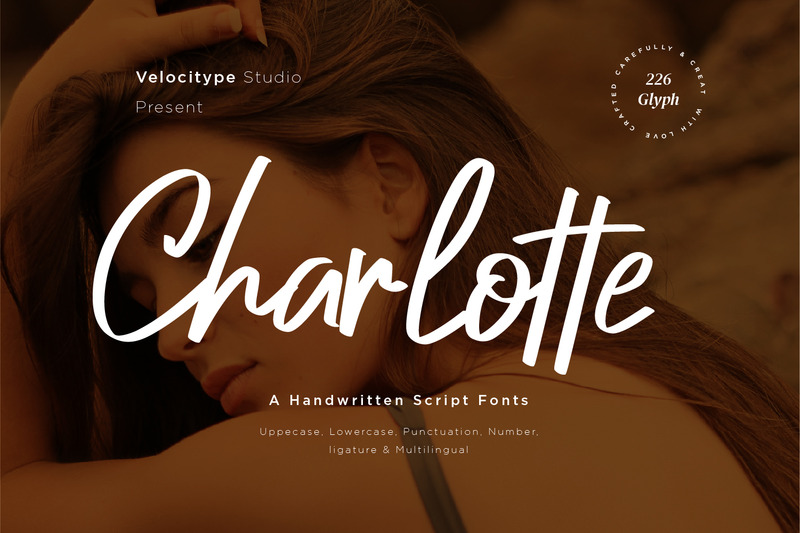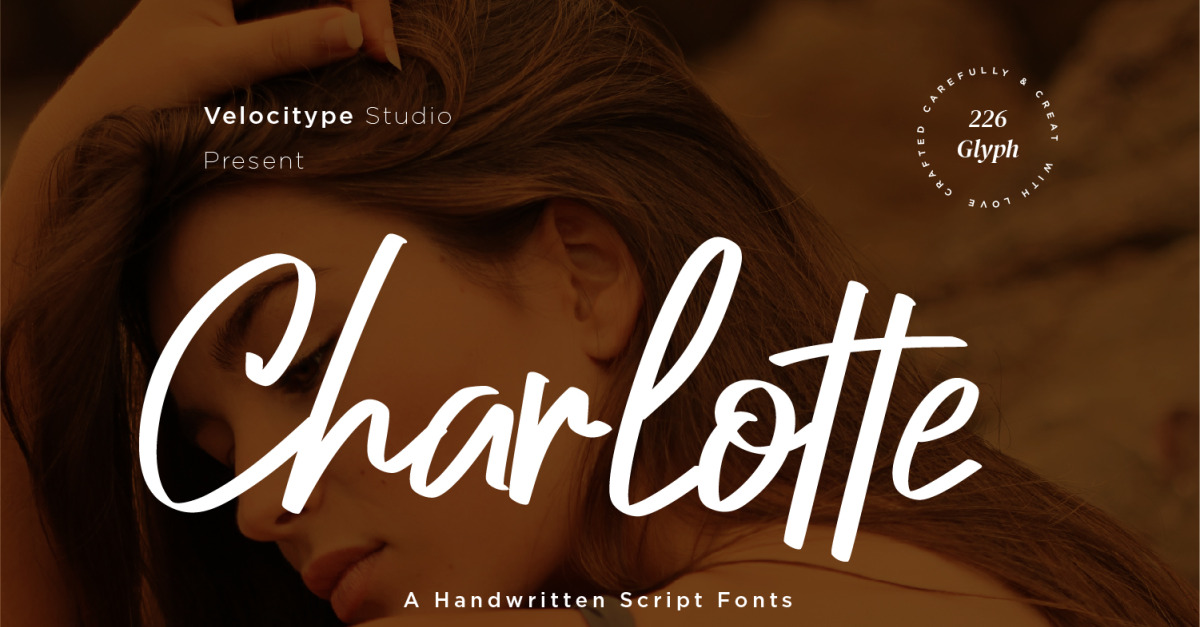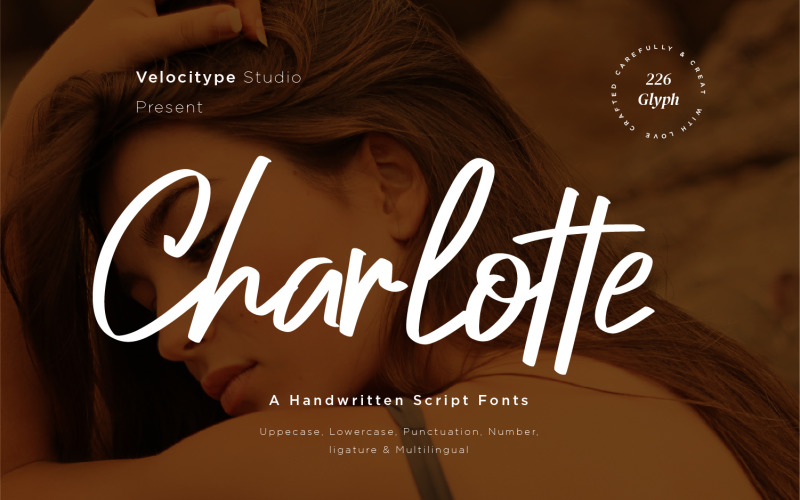
Charlotte - Handwritten Script fonts
Charlotte is a Handwritten script font, will be suitable for any projects such as branding, promotional ads, quotes design, merchandise, social media and much more. make your work or your business to high level!!! special events, and all your other lovely projects that need beautiful handwriting taste.
- Uppercase & Lowercase
- Numerals
- Punctuations (OpenType Standard)
- Accents (Multilingual Characters)